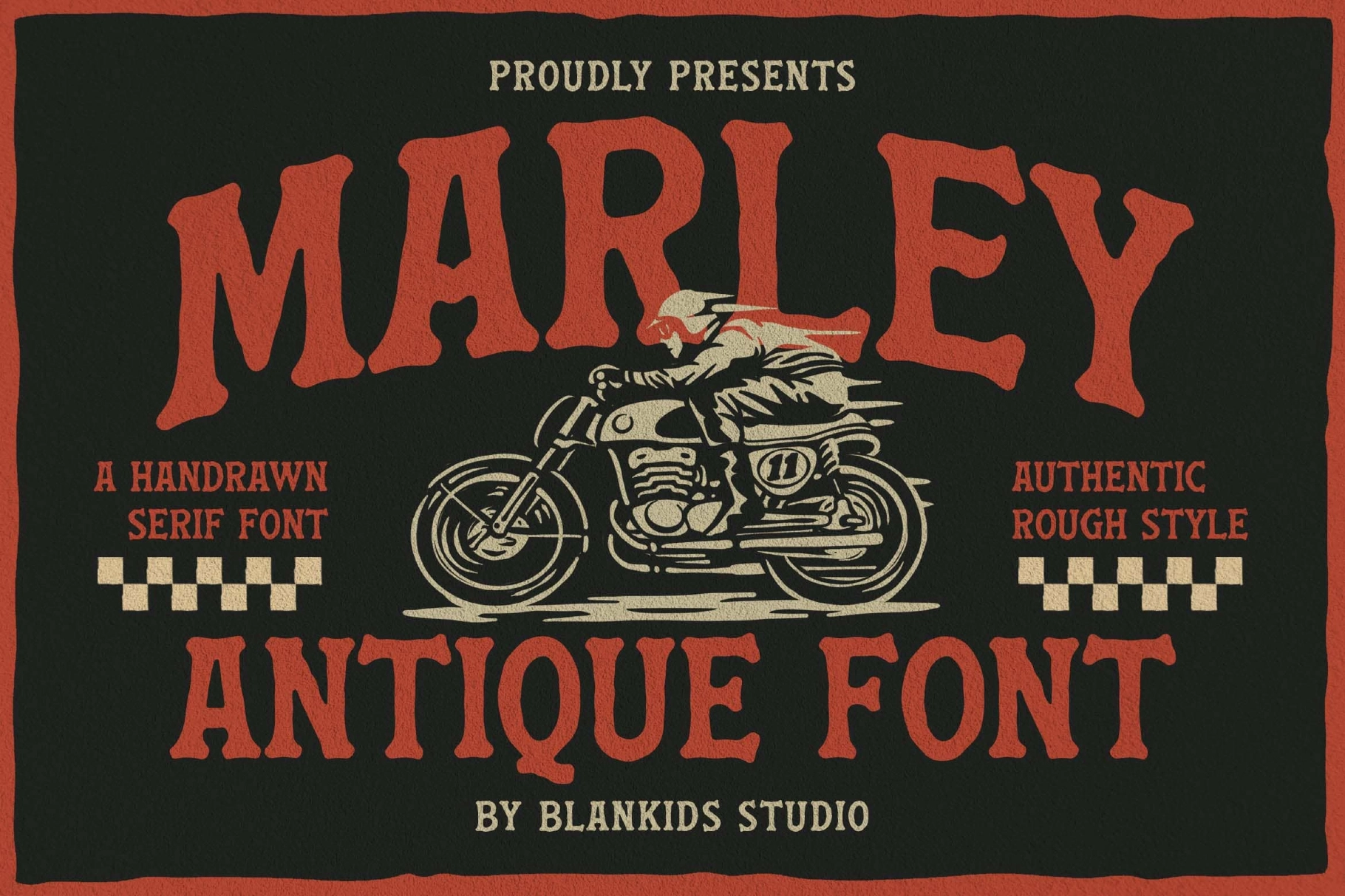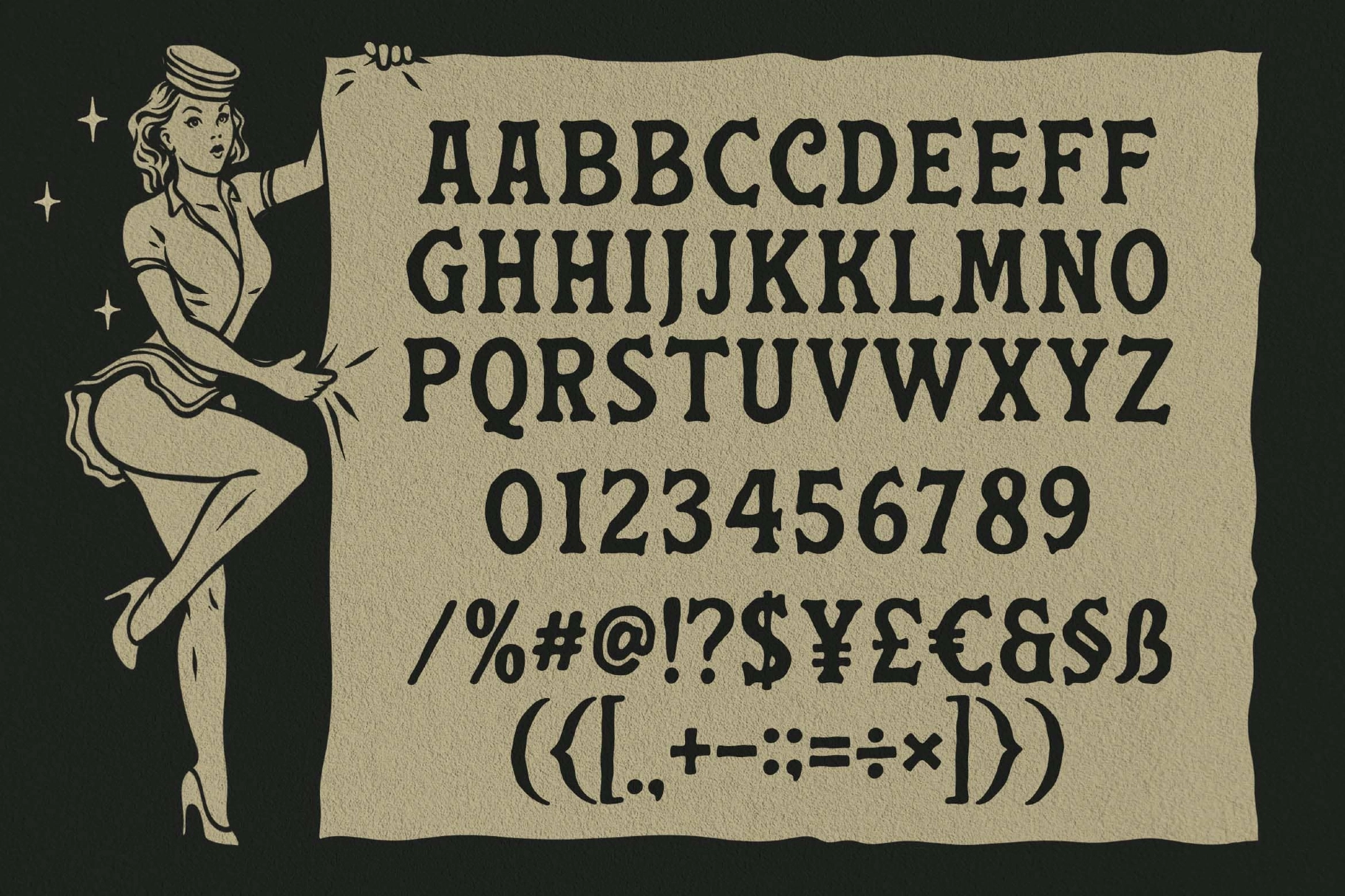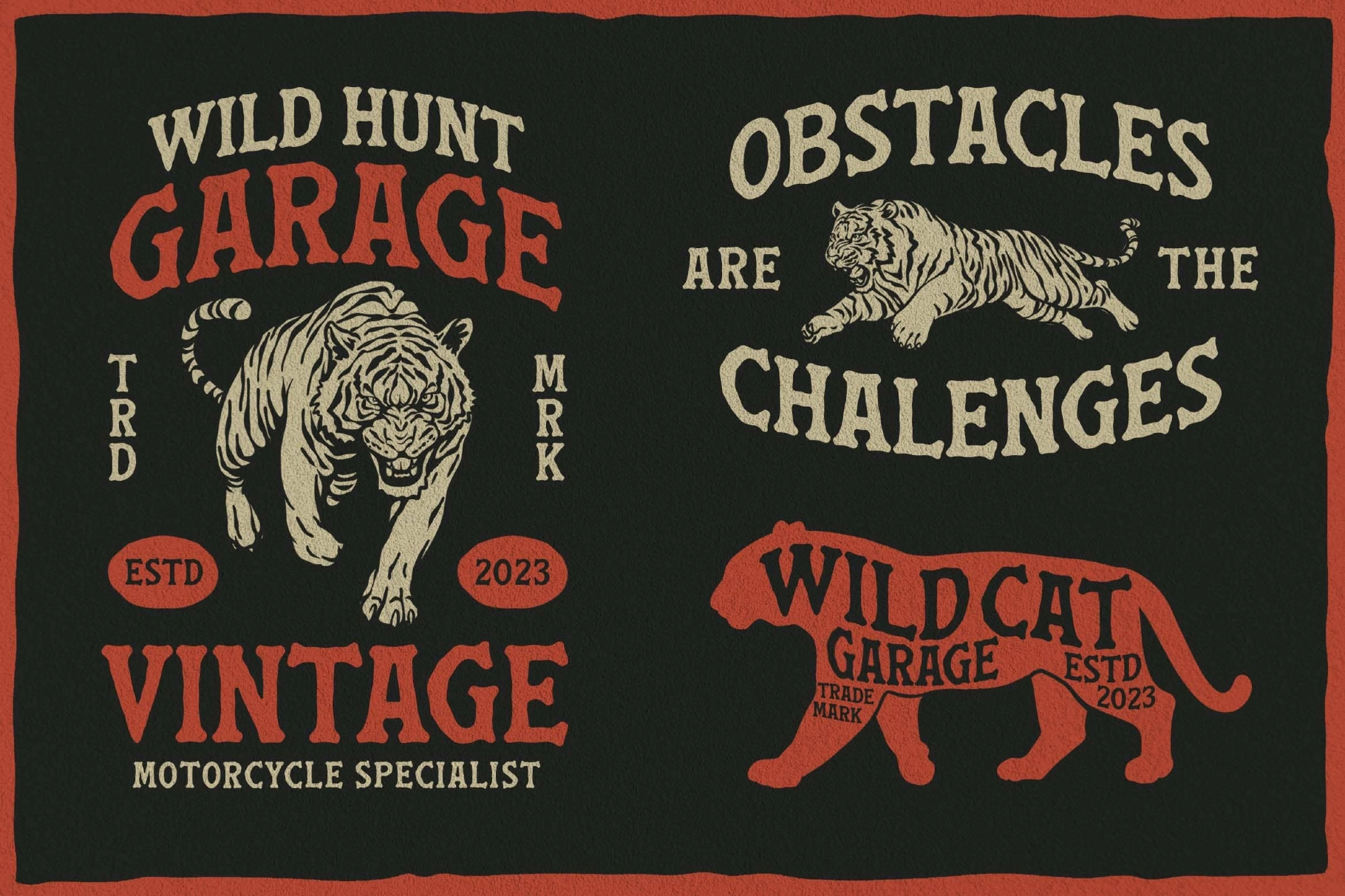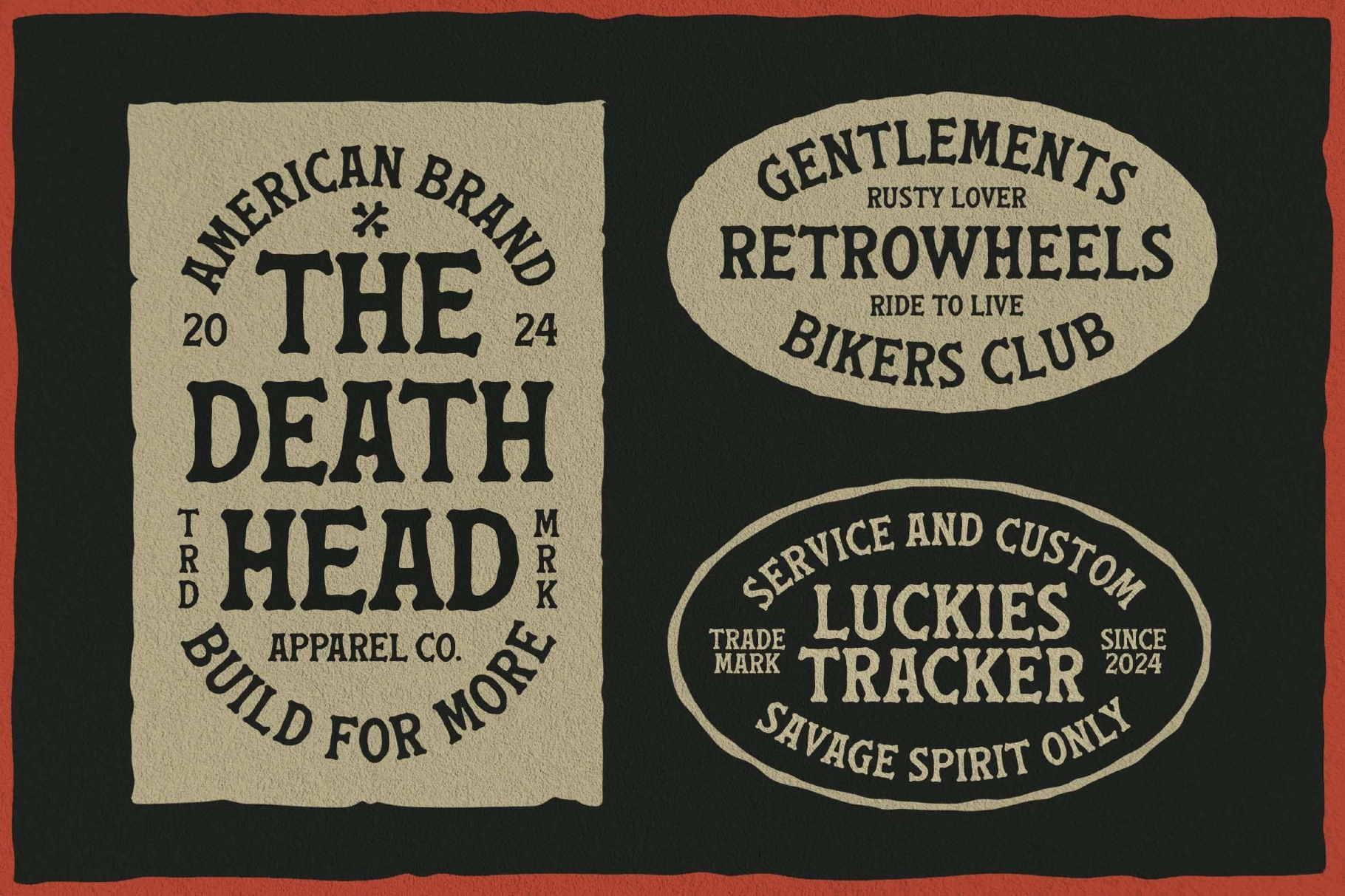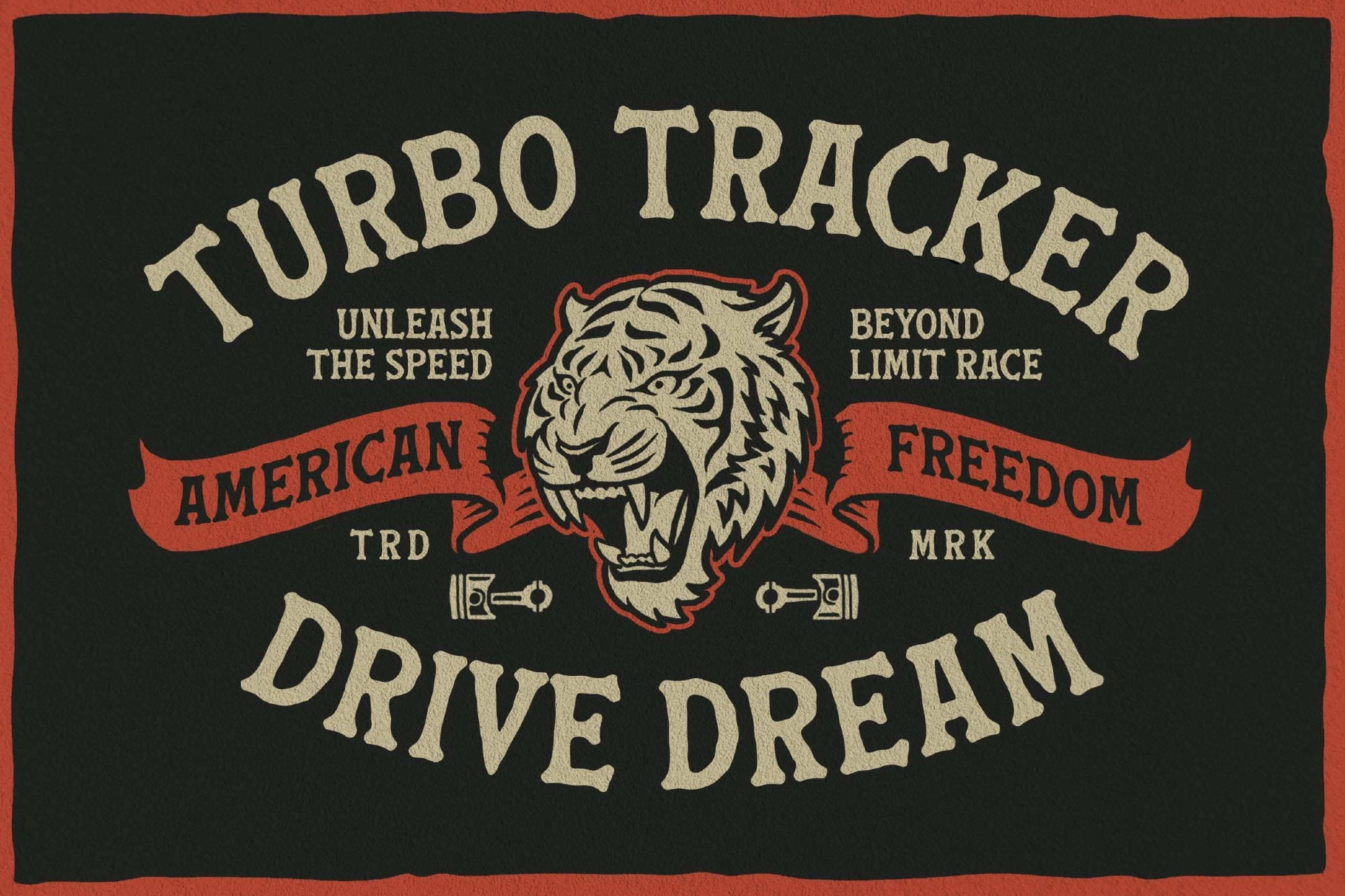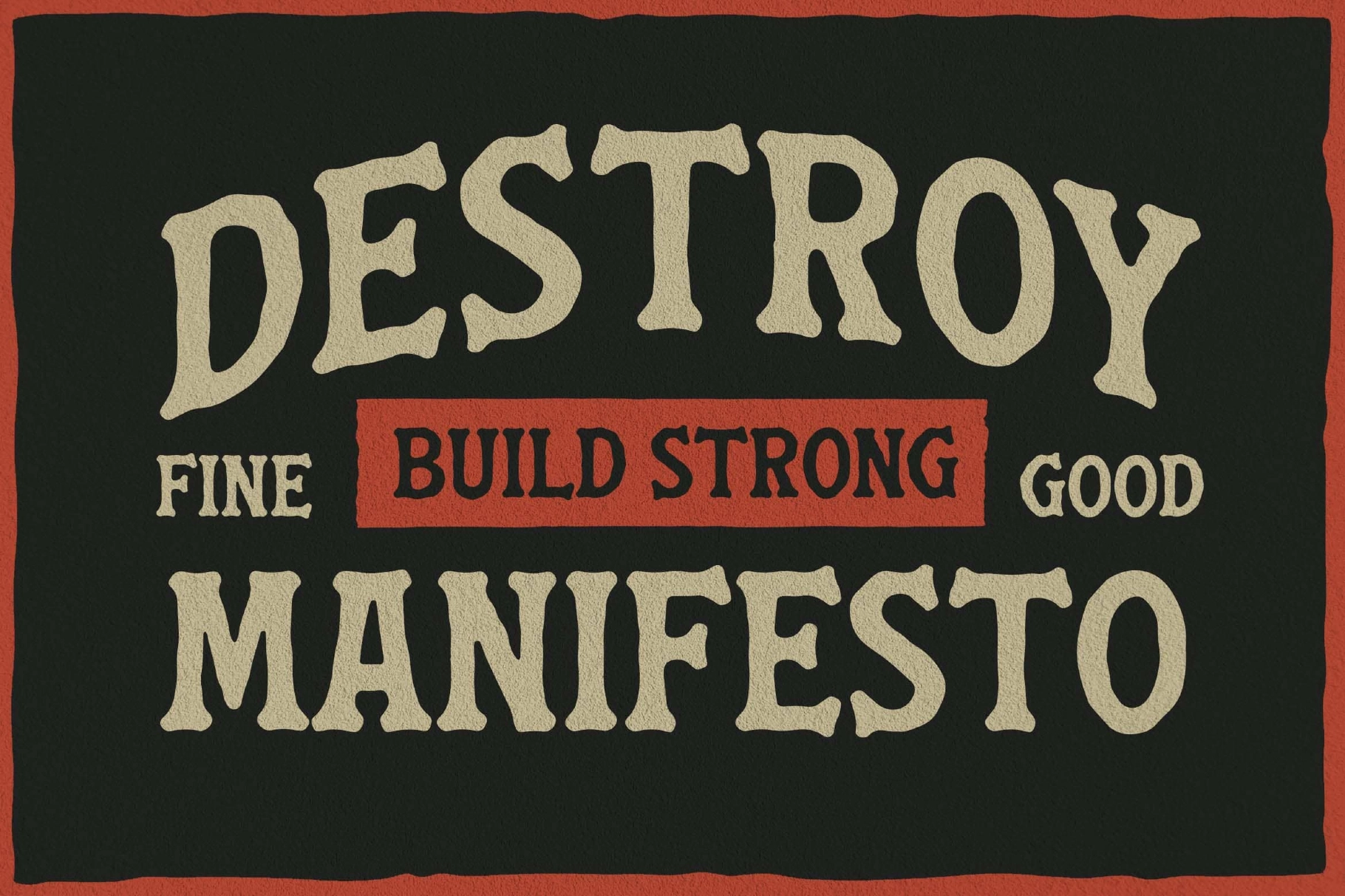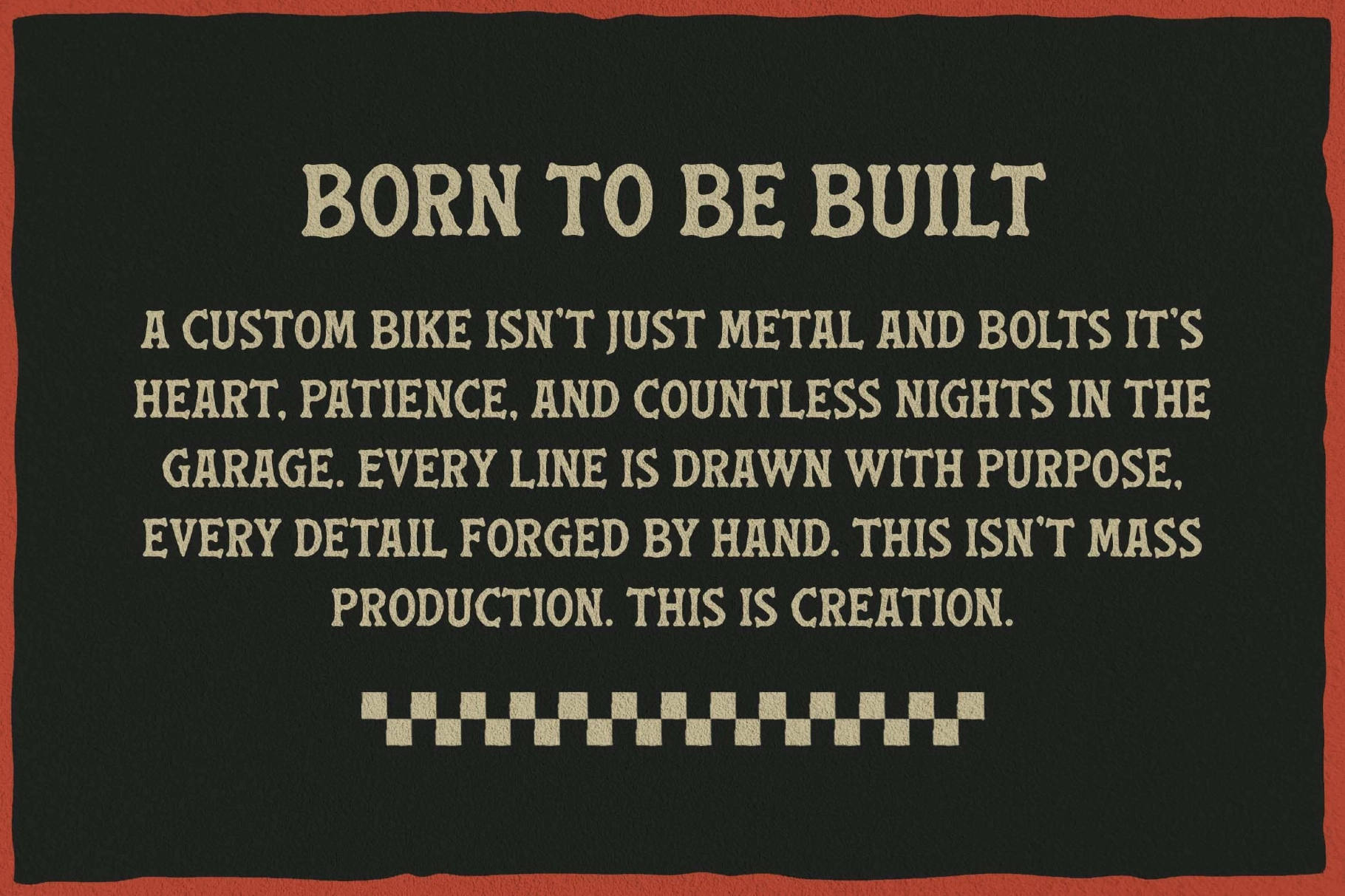
Marley Antique - Vintage Handdrawn Serif Font
Marley Antique
Marley Antique – Vintage Handdrawn Serif Font is a bold handcrafted typeface inspired by retro signage, classic Americana, and motorcycle culture. Its textured letterforms and slightly irregular shapes create an authentic, worn-in look that feels expressive and full of character.
Designed to bring warmth and personality into your work, Marley Antique is perfect for branding, posters, packaging, and apparel where a strong vintage voice is essential. The rough serif details and hand-drawn construction give every composition a natural, human touch that stands apart from clean digital fonts.